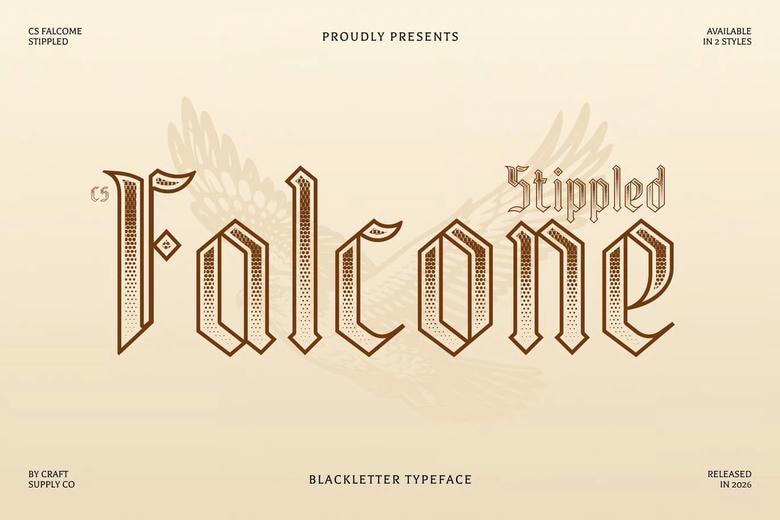
Falcone Stippled Font
Falcone Stippled Font – Gothic Elegance and Textured Bold Presence Gothic Display Font with Stippled Texture This is a bold Gothic display typeface, which has the dramatic flair of medieval design. This font has a very strong and commanding aesthetic that is defined by dark and bold characters, sharp letterforms, and a heavy emphasis on the vertical. A stippled texture is also added to give the letters a slight dotted texture which gives it depth and a hand made quality that adds to its historic and atmospheric qualities.
Medieval Inspiration with Dramatic Form Inspired by the Gothic cathedrals and medieval calligraphy, the font is characterized by high angles, sharp details, and ornaments that remind of the greatness of the Gothic period. The stippled texture also adds more detail to the design as the font had a somewhat artistic touch but retained its heavy structural appearance.
Dark and Powerful Visual Themes this has a dramatic frame and gothic influence, which is best suited to projects that strive at communicating mystery, intensity, and historical richness. The oversized shapes and rough texture are combined to create a visual powerful typeface that immediately draws attention.
Multifunctional to Bold Creative Uses This font is useful in horror movies posters, metal bands logos, album covers, event promotions, branding, and experimental designs. The mixture of gothic tradition and stippled texture provides it with a unique aesthetic that is both traditional and aesthetically impressive.
Falcone Stippled Blackletter Font